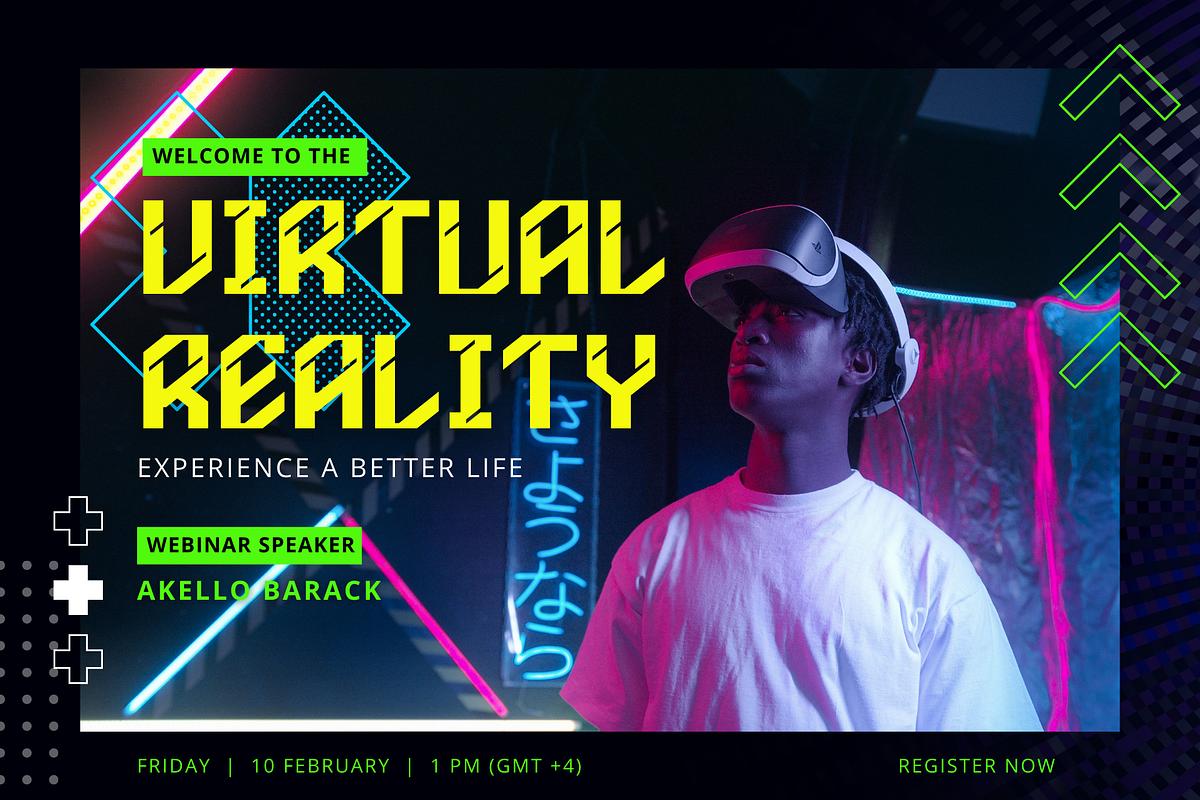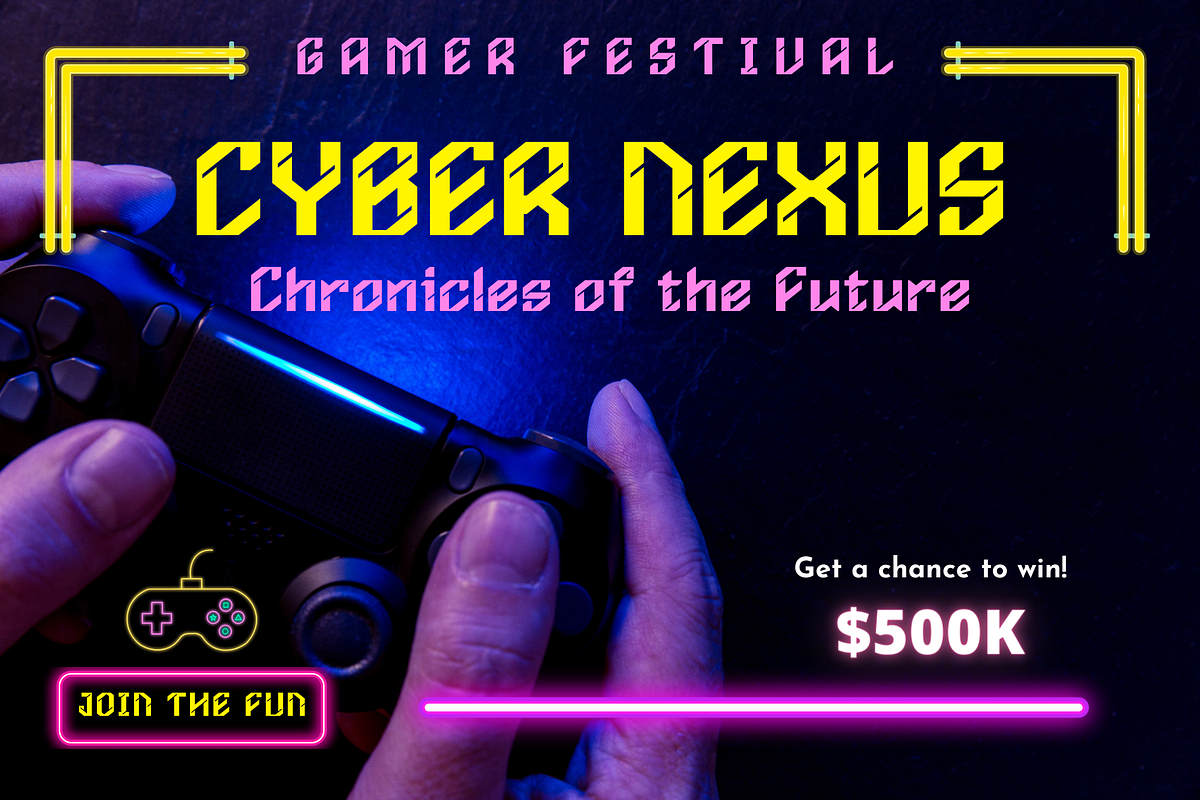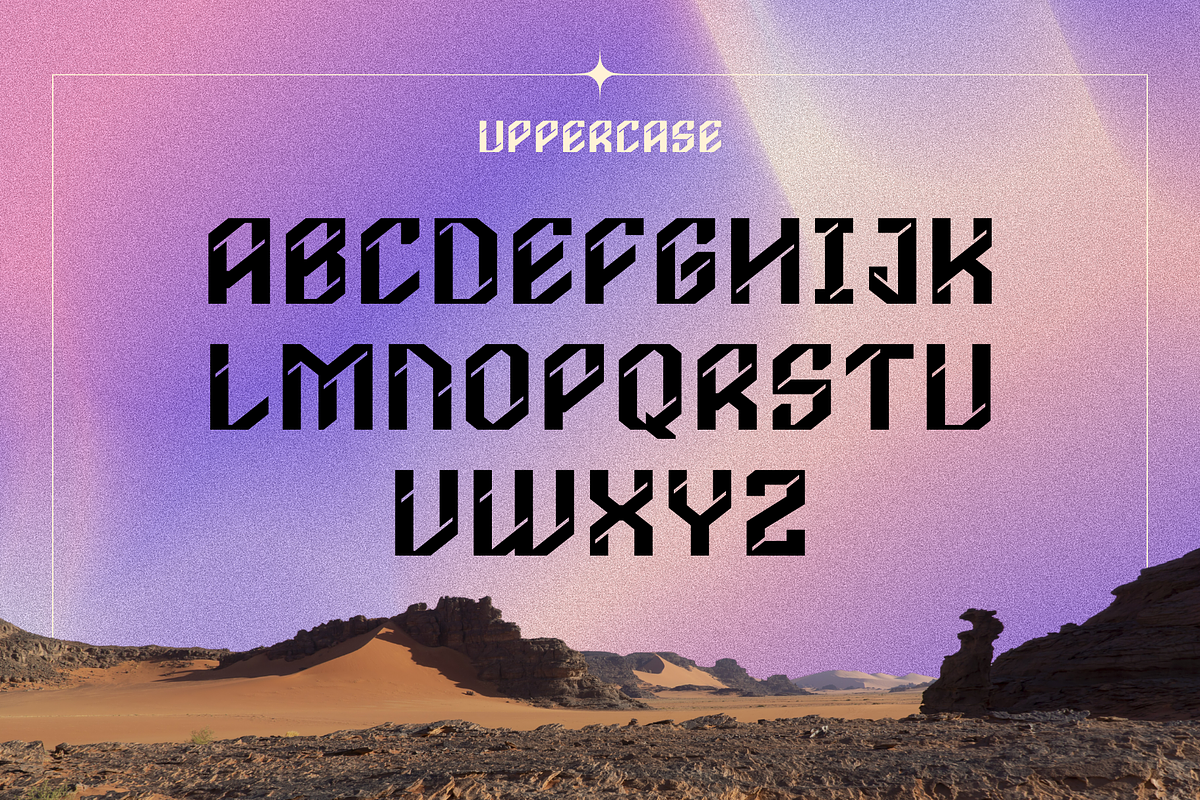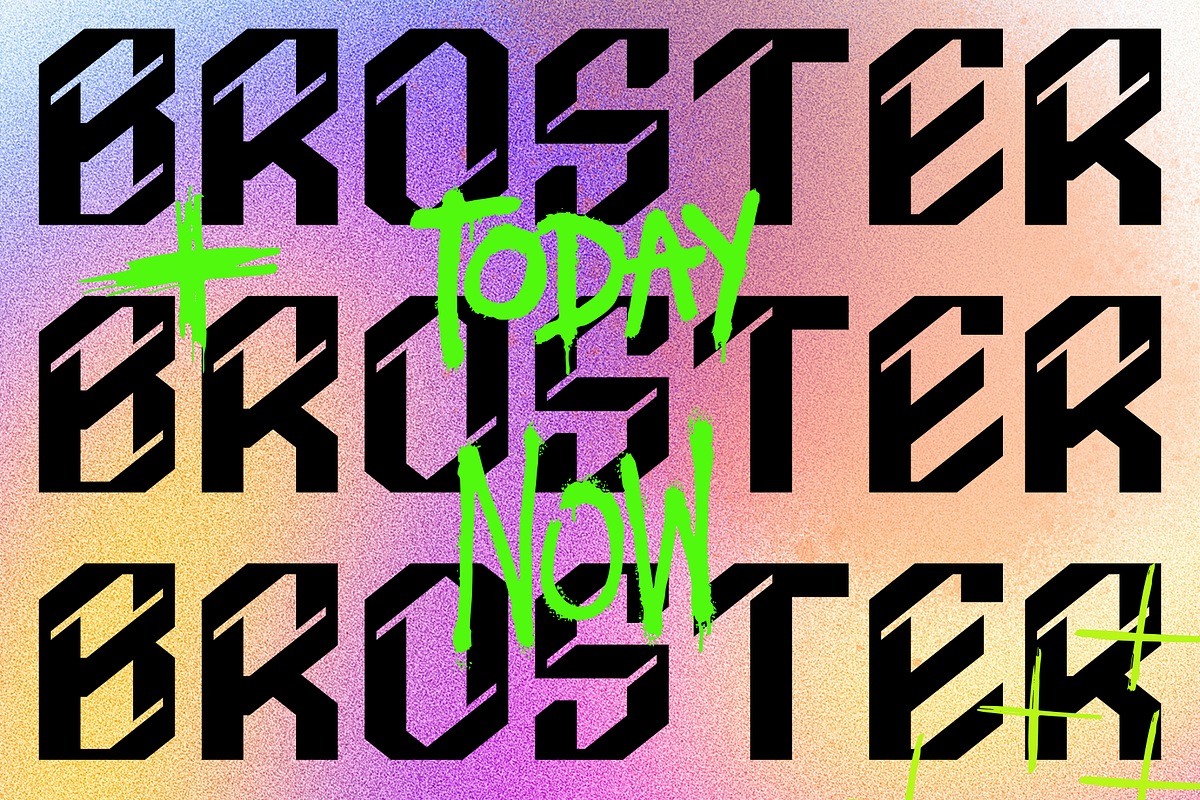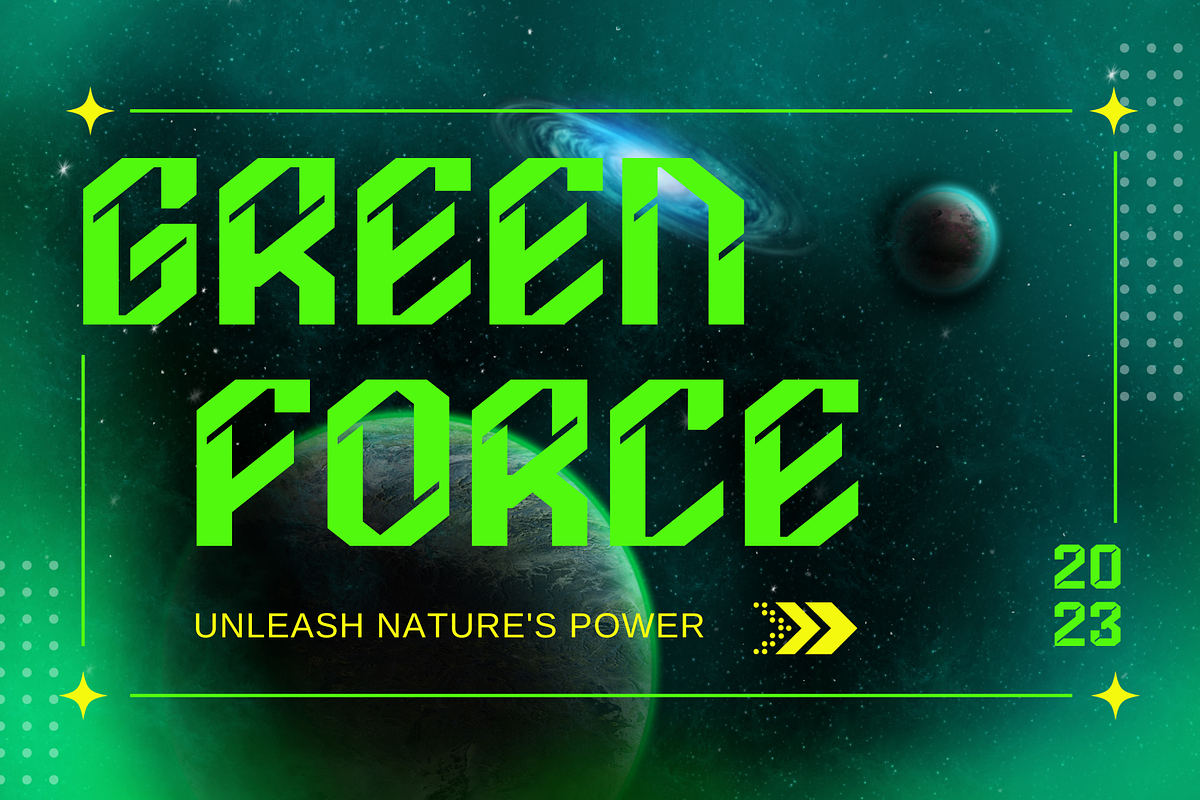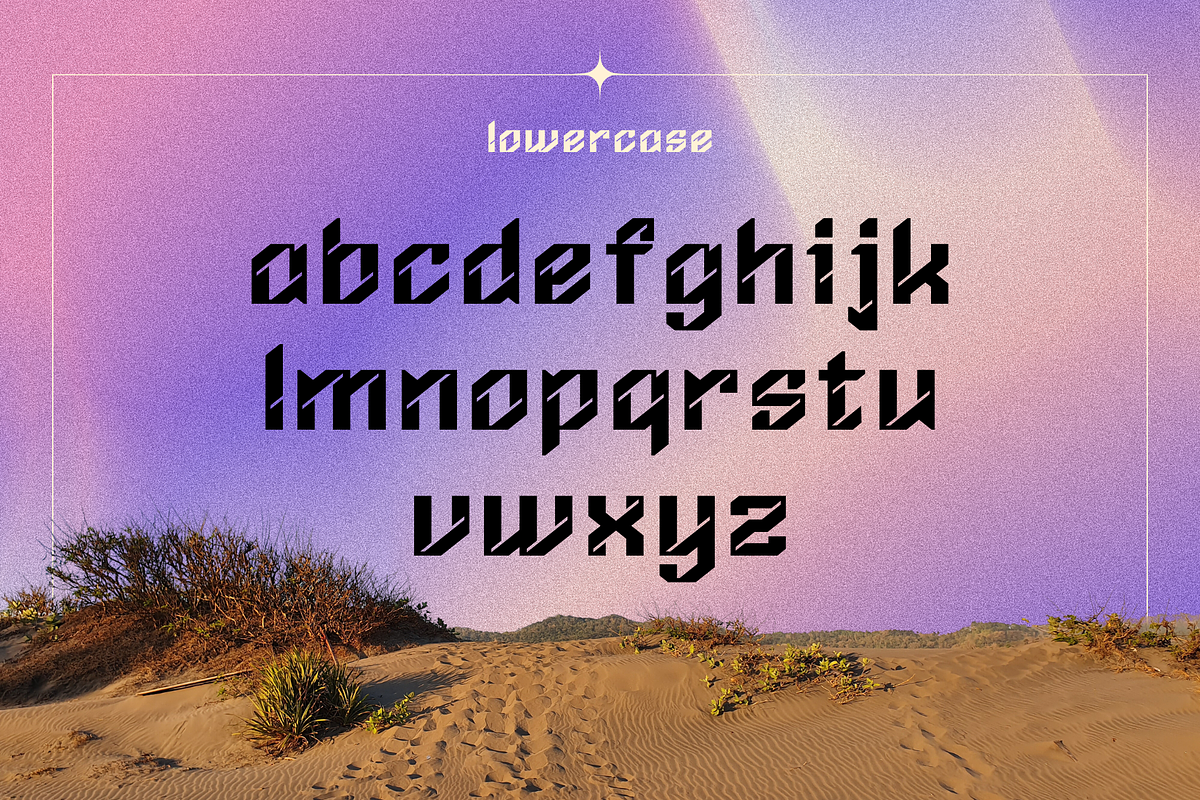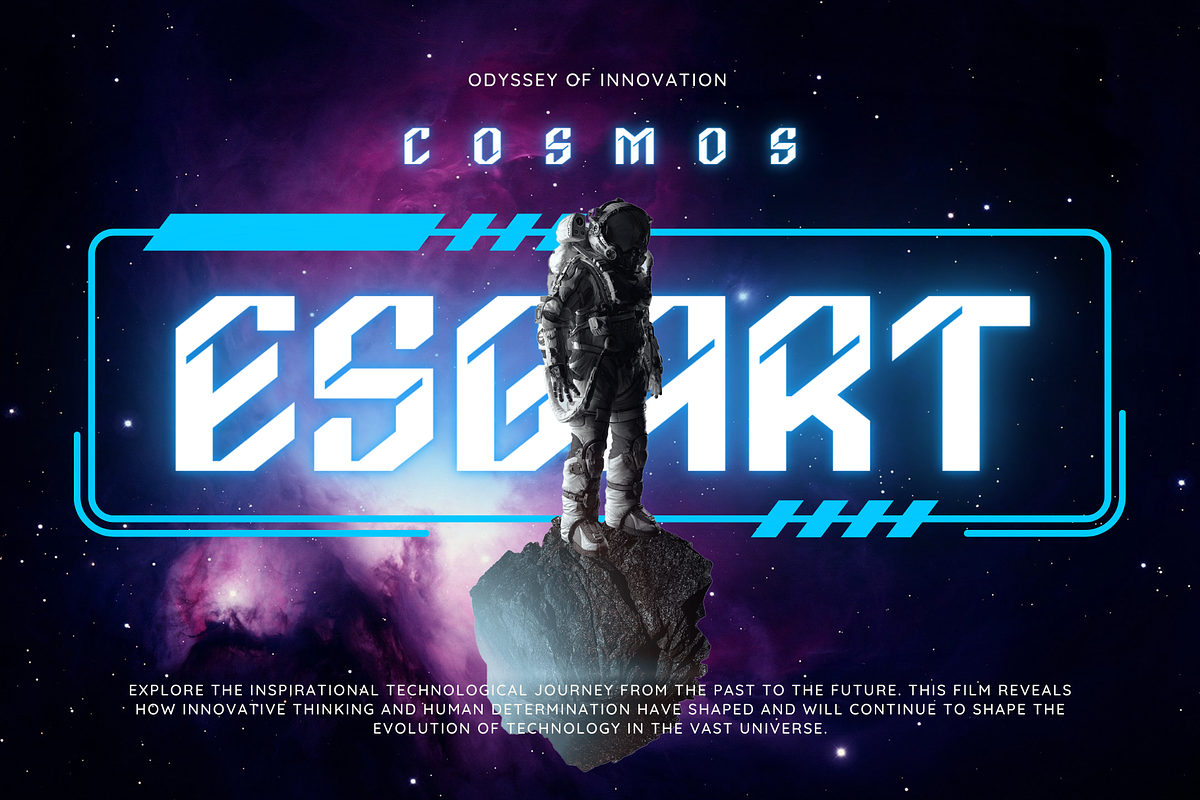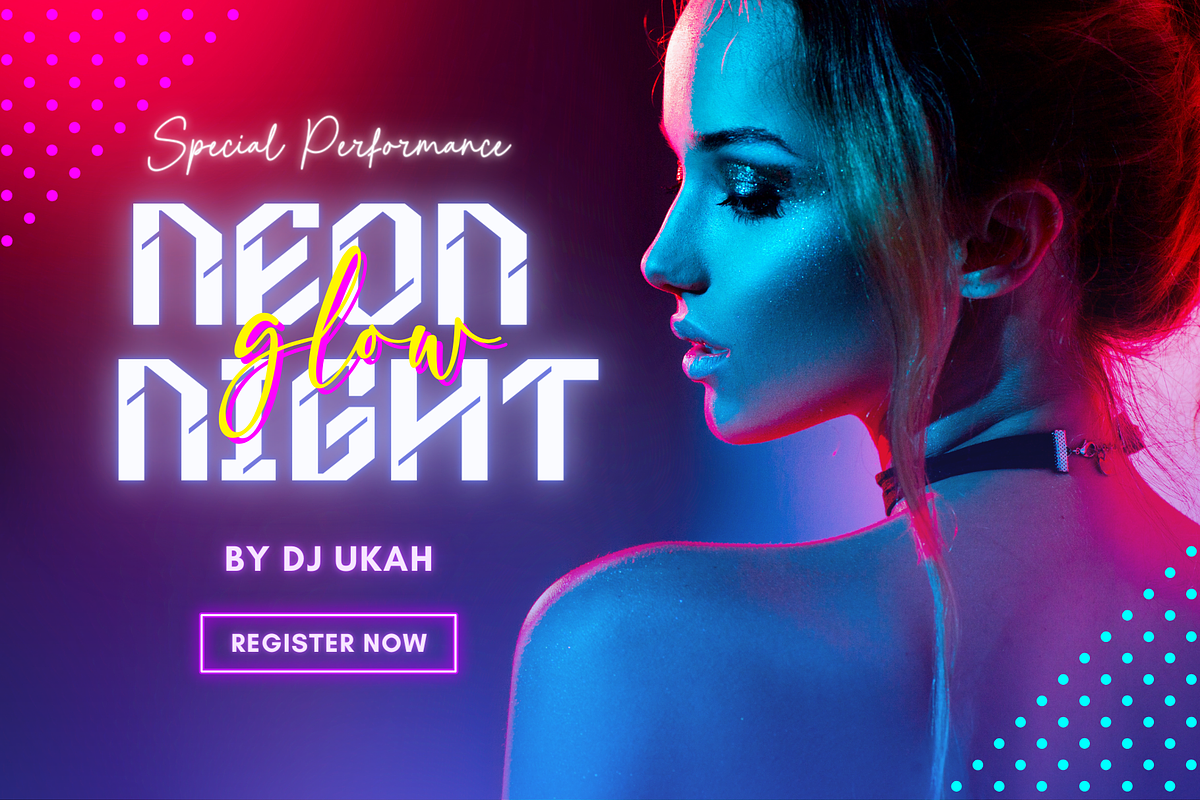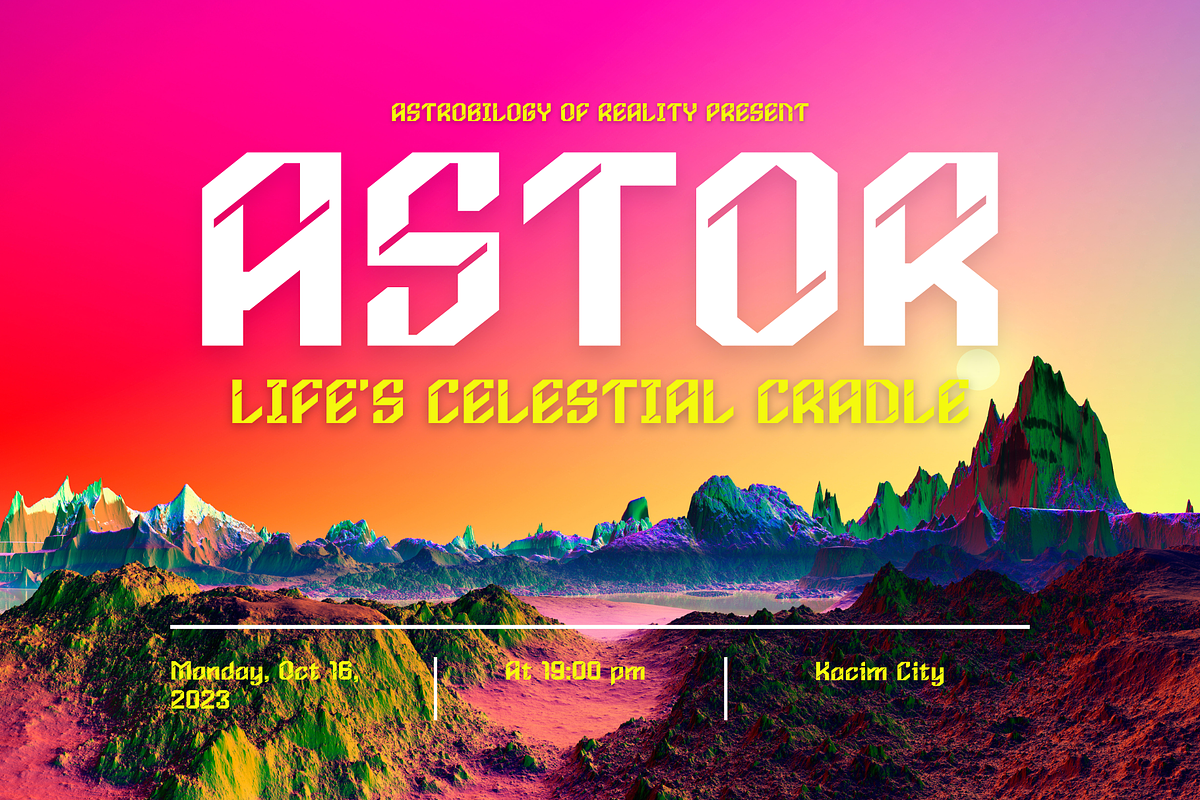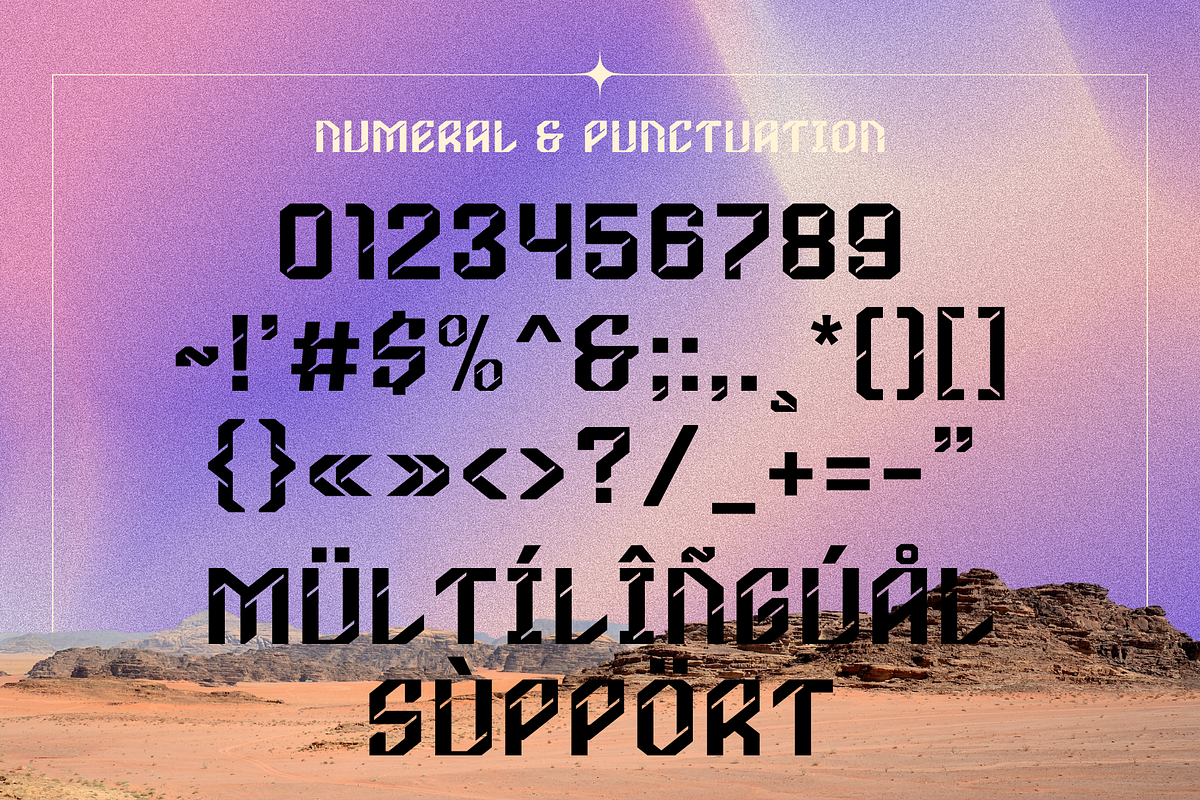
Moonstrike - Tech Font
"Moonstrike" is a font that embodies the futuristic essence of tech and space. With its sleek, modern letterforms, it's the perfect choice for projects that demand a contemporary, high-tech look. Whether you're designing for sci-fi themes, technology interfaces, or any project that requires a futuristic aesthetic, "Moonstrike" adds a touch of space-age sophistication to your designs.
- Uppercase and lowercase letters
- Alternate Glyph
- Multilingual, numerals, and punctuation